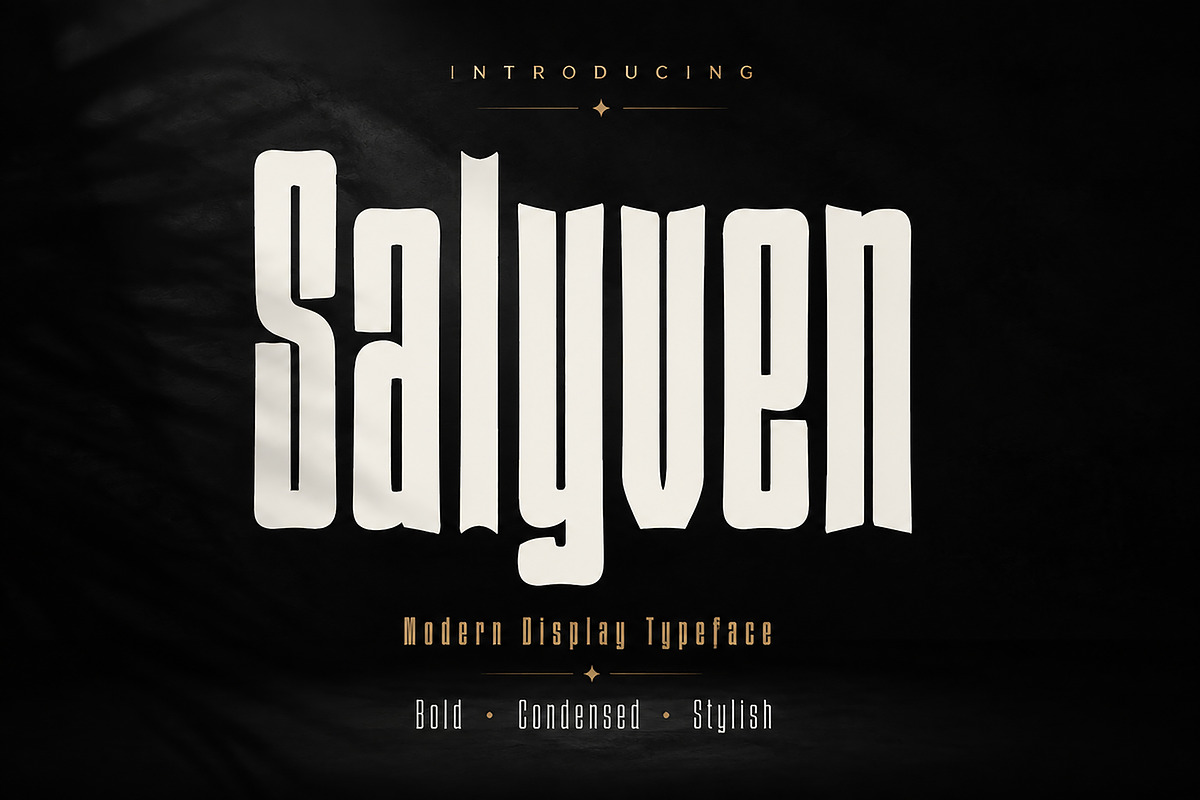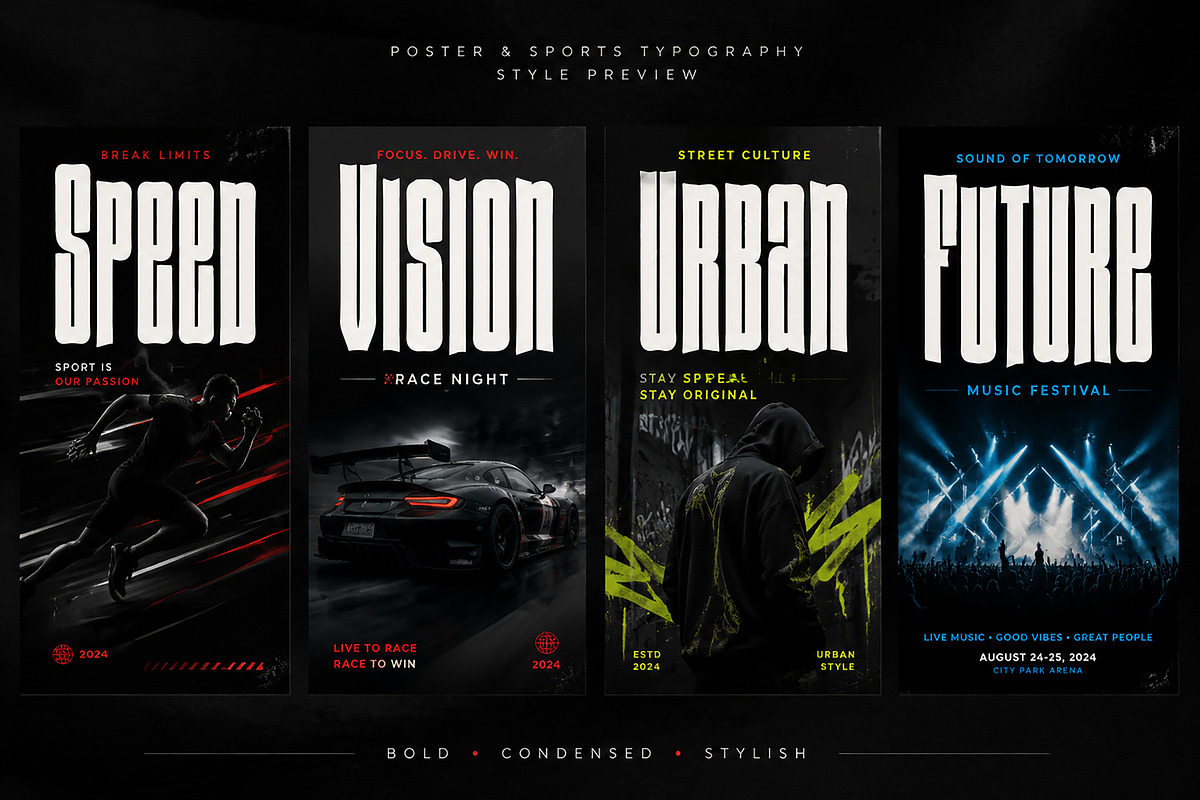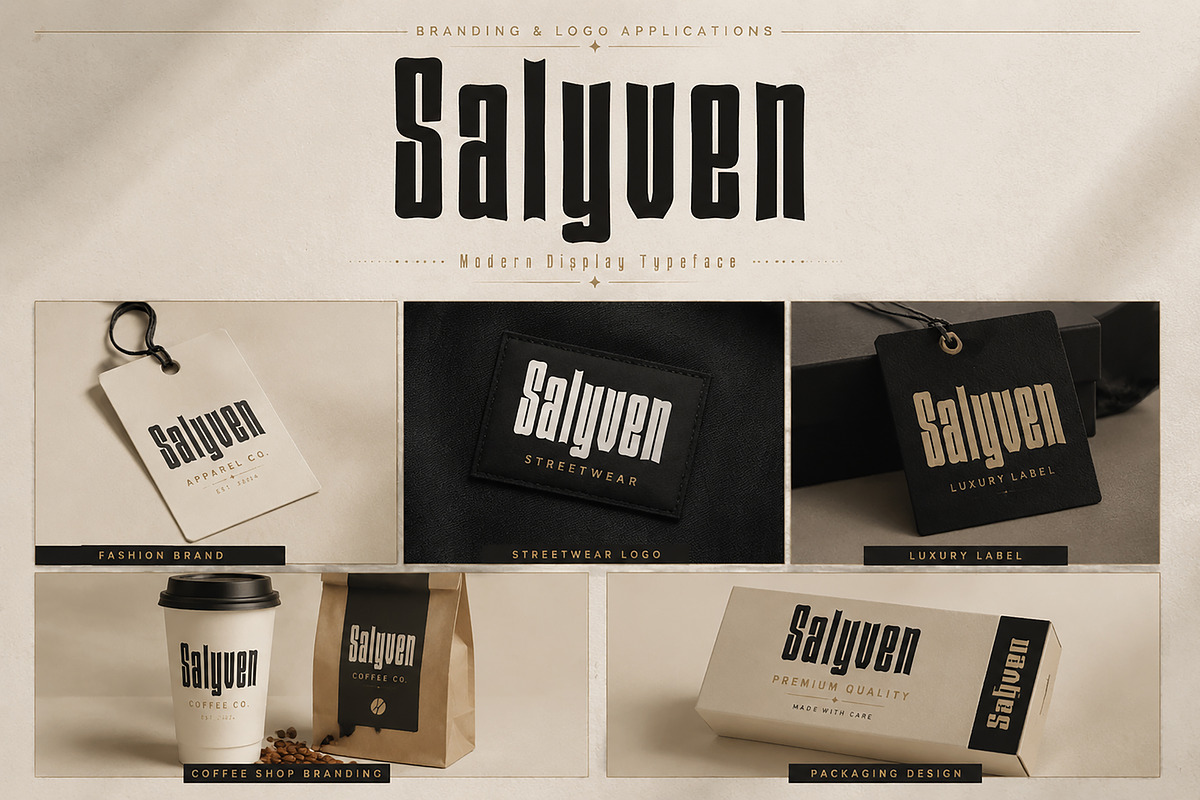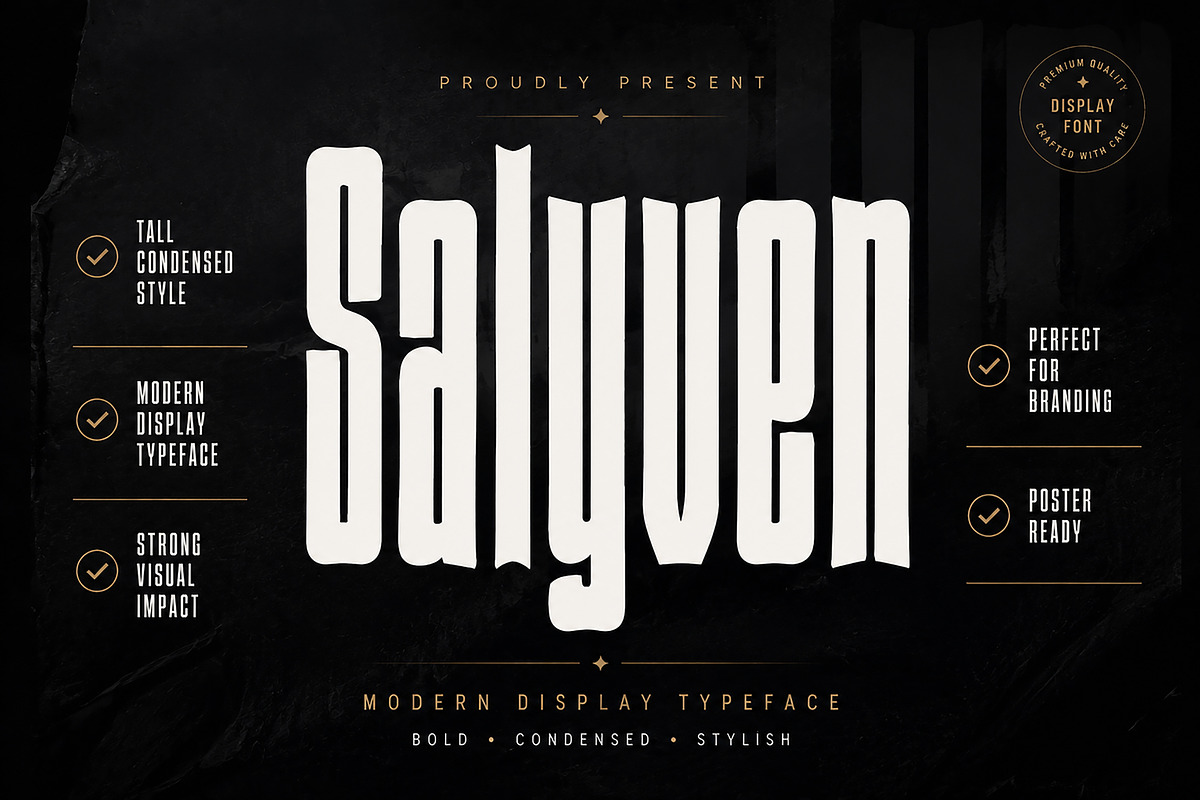
Salyven
Salyven – Modern Condensed Display Typeface
Salyven is a bold and stylish condensed display typeface designed to create a strong visual impact. With its tall letterforms, unique geometric structure, and modern editorial style, Salyven is perfect for projects that need a powerful and memorable typographic presence.
This typeface is ideal for fashion branding, luxury logos, posters, magazine covers, streetwear designs, music artwork, packaging, headlines, and creative advertising projects.
Salyven brings a premium modern aesthetic that works beautifully for both digital and print designs, giving your projects a bold, contemporary, and professional look.
✔ Modern Condensed Display Typeface
✔ Tall & Bold Letter Structure
✔ Strong Visual Impact
✔ Premium Branding Style
✔ Perfect for Logos & Headlines
✔ Poster & Editorial Design Ready
✔ Suitable for Fashion, Streetwear & Creative Projects
✔ Clean Professional Font Design
Recommended Uses:
Branding Identity
Fashion Labels
Streetwear Design
Posters
Magazine Titles
Album Covers
Advertising Headlines